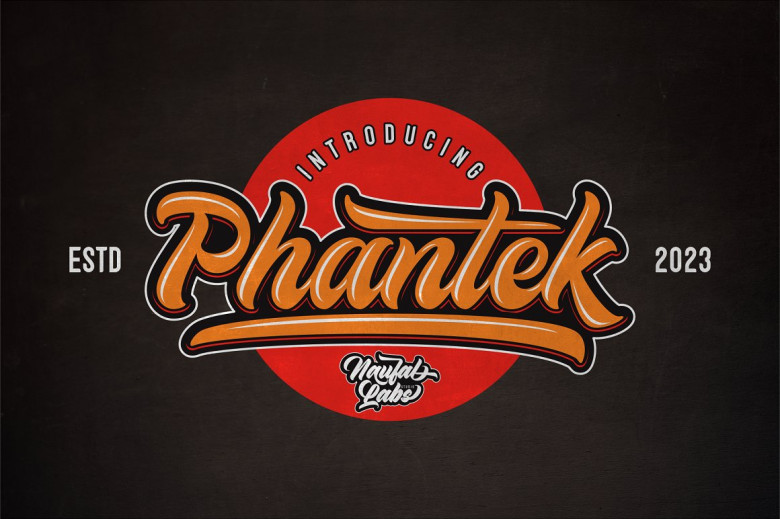
Phantek Font
Phantek Script is a strong bold handwritten script that has been specifically designed using brush pen scratches, allowing it to be easily converted to natural painted text. With the main script that is being used, it is certainly very interesting in terms of usage because it is already mixed with a variety of Alternates from the starting swash variations and also the Stylistic Set, plus a special Ornament Fonts that are very suitable.
Haventype works great for logos, labels, posters, shirt designs, wisdom quotes, bulletins, typography, this font is also good in the vintage classics If life Give you Lemons. Get Creative with which weak become strong, good luck.
Phantek Calligraphy Script Font